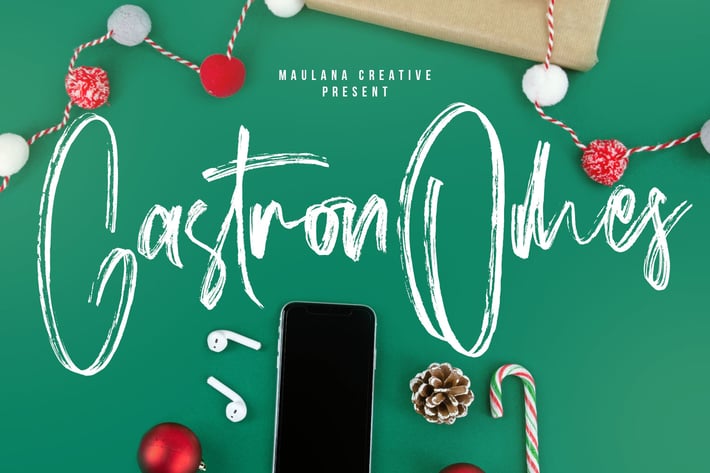
Gastronomes Brush Handmade Font
Give your designs an authentic brush handcrafted feel. "Gastronomes" is perfectly suited to signature, stationery, logo, typography quotes, magazine or book cover, website header, flyer, clothing, branding, packaging design and more.